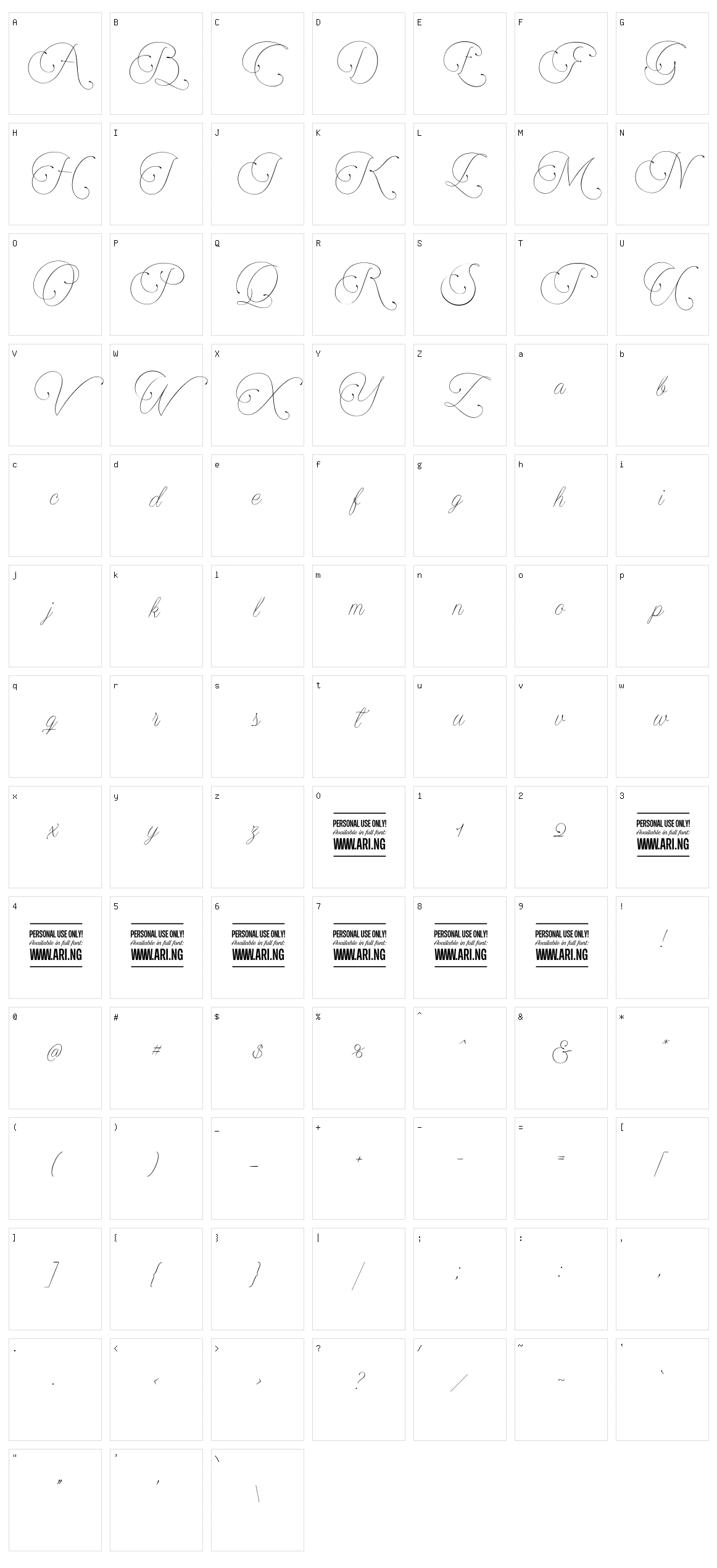
Encina Script is a formal calligraphy typeface, carefully designed by Måns Grebäck.
Its swirly, thin strokes organically makes up large and delicate letters.
Encina Script works perfectly in magazines, invitations and logotypes that require an elegant twist.
It comes in two versions, with two different sizes of the upper case alphabet, to make it work in all contexts.
The typeface's contextual alternates makes every word begin and finish in a natural and beautiful way.